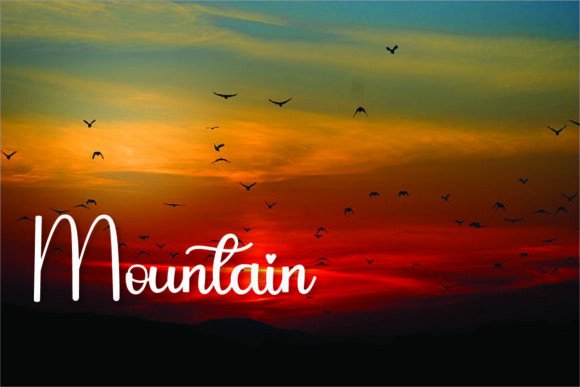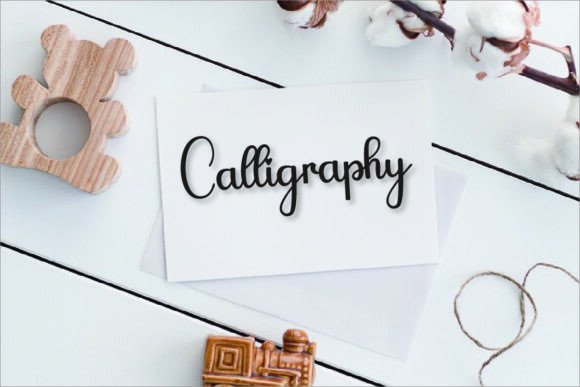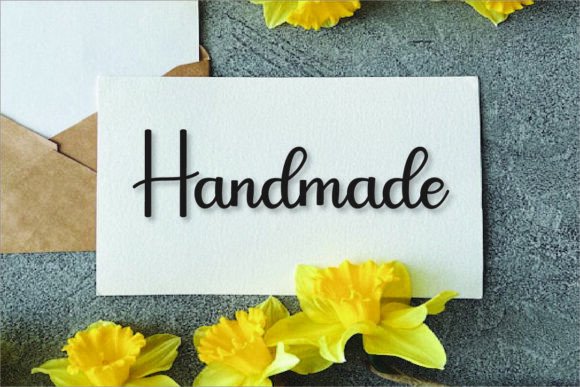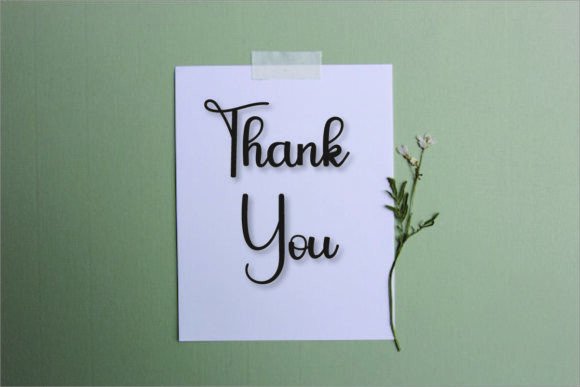
Have you ever stared at a blank canvas, a blank page, or even a blank screen, feeling like the perfect design is just out of reach? You know, that moment when your imagination runs wild and you can’t wait to bring your ideas to life. That’s when the right font can be the game-changer you need.
Enter the Dinasty Font, a charming and inviting handwritten font that’s sure to add a personal touch to your designs. With its natural and unique style, this font is the perfect choice for any project that needs a little extra personality. Whether you’re a seasoned designer or just starting out, the Dinasty Font is an invaluable tool in your creative arsenal.
What sets the Dinasty Font apart is its versatility – it’s the perfect fit for a wide range of designs, from elegant invitations to playful social media graphics. With the Dinasty Font, the only limit is your imagination, making it a valuable asset for designers looking to add a little extra flair to their work.
Dynasty Font Key Features
- Unique Characteristics: Dynasty Font features a unique blend of traditional and modern elements, with intricate details and ornate flourishes, making it perfect for creating elegant and sophisticated designs.
- Font Style: Available in Regular, Bold, Italic, and Bold Italic styles, providing flexibility for designers to create various effects and moods.
Dinasty Font Review
As a designer, I was excited to try out the Dinasty Font. At first glance, I was impressed by its unique and elegant look ✨. The font’s combination of modern and vintage elements gives it a sophisticated feel that would be perfect for luxury brands or high-end products.
- Unique aesthetic: Dinasty Font has a distinct look that sets it apart from other fonts.
- High-quality glyphs: The font’s glyphs are well-designed and smooth, making it a pleasure to read.
- Wide range of weights: Dinasty Font comes in a variety of weights, from light to bold, giving designers flexibility in their typography choices.
- Limited language support: Dinasty Font may not support all languages, which could be a problem for designers working on global projects ⚠️.
- May not be suitable for body text: While Dinasty Font is perfect for headlines and titles, it may be too ornate for body text, which could make it difficult to read.
Overall, I think Dinasty Font is a great choice for designers who want to add a touch of luxury and sophistication to their projects. With its unique aesthetic and high-quality glyphs, it’s a great option for titles and headlines. However, designers should be aware of its limitations and use it judiciously in their designs.
Dinasty Font is ideal for:
– Creating a luxurious or vintage aesthetic.
– Designing wedding invitations or stationery.
– Adding a touch of elegance to business cards or brochures.
Remember to use Dinasty Font in moderation to avoid overwhelming your design.
Alternatives to Dinasty Font for Designers
Playfair Display is an elegant and luxurious serif font, perfect for high-end branding, luxury products, and fine art. Its unique character and refined lines make it a great choice for creating a sense of sophistication and glamour.
Compared to Dinasty Font, Playfair Display is more ornate and refined, with a stronger emphasis on luxury and elegance. While Dinasty Font has a strong, modern feel, Playfair Display is more traditional and vintage-inspired.
Merriweather is a classic serif font with a timeless, traditional feel. It’s perfect for body text, academic writing, and historical documents, as it conveys a sense of authority and credibility.
Compared to Dinasty Font, Merriweather is more straightforward and less flashy, with a focus on clarity and readability. While Dinasty Font is more attention-grabbing, Merriweather is a more subtle choice that lets the content shine.